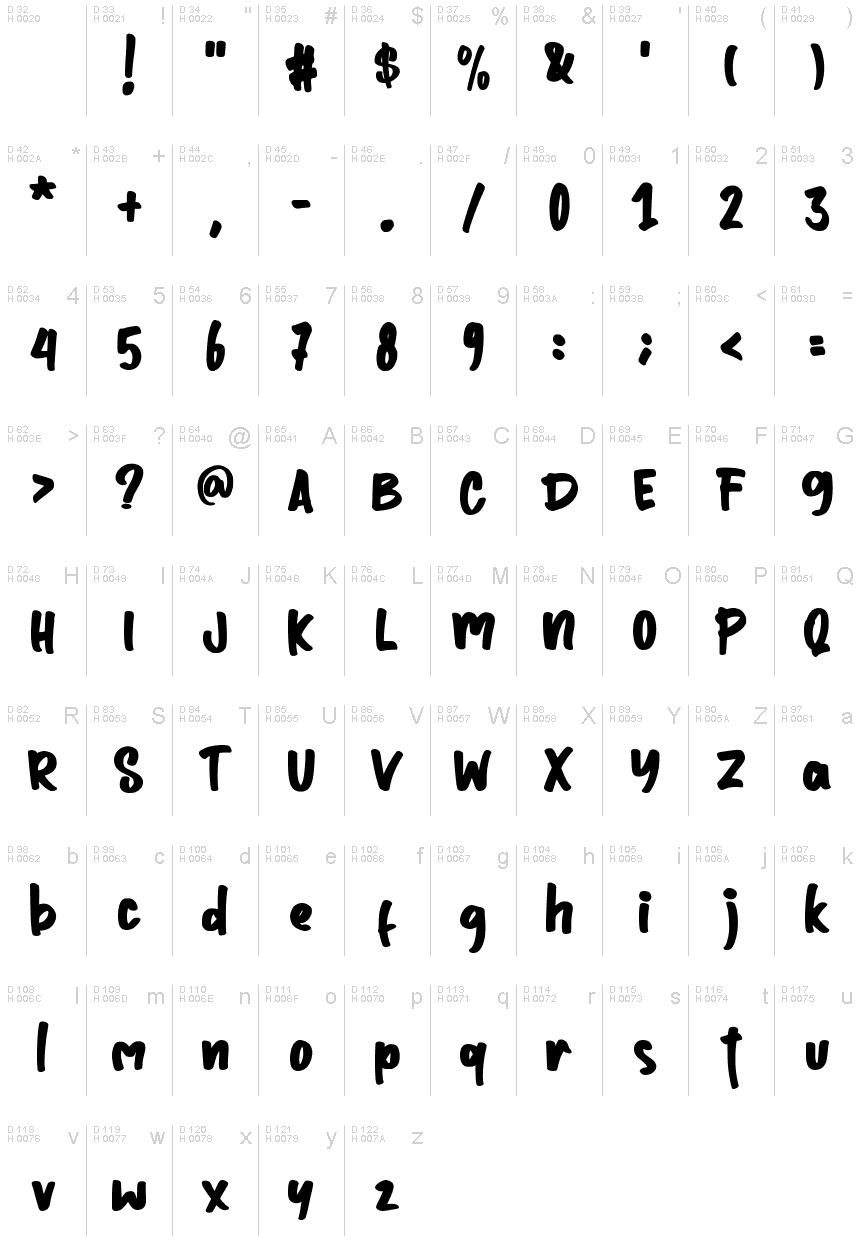
Jolly Angel is a playful marker font designed by Stefani Letter. Its bold weight makes it ideal for projects like posters, flyers, and apparel designs that require a fun, whimsical feel.